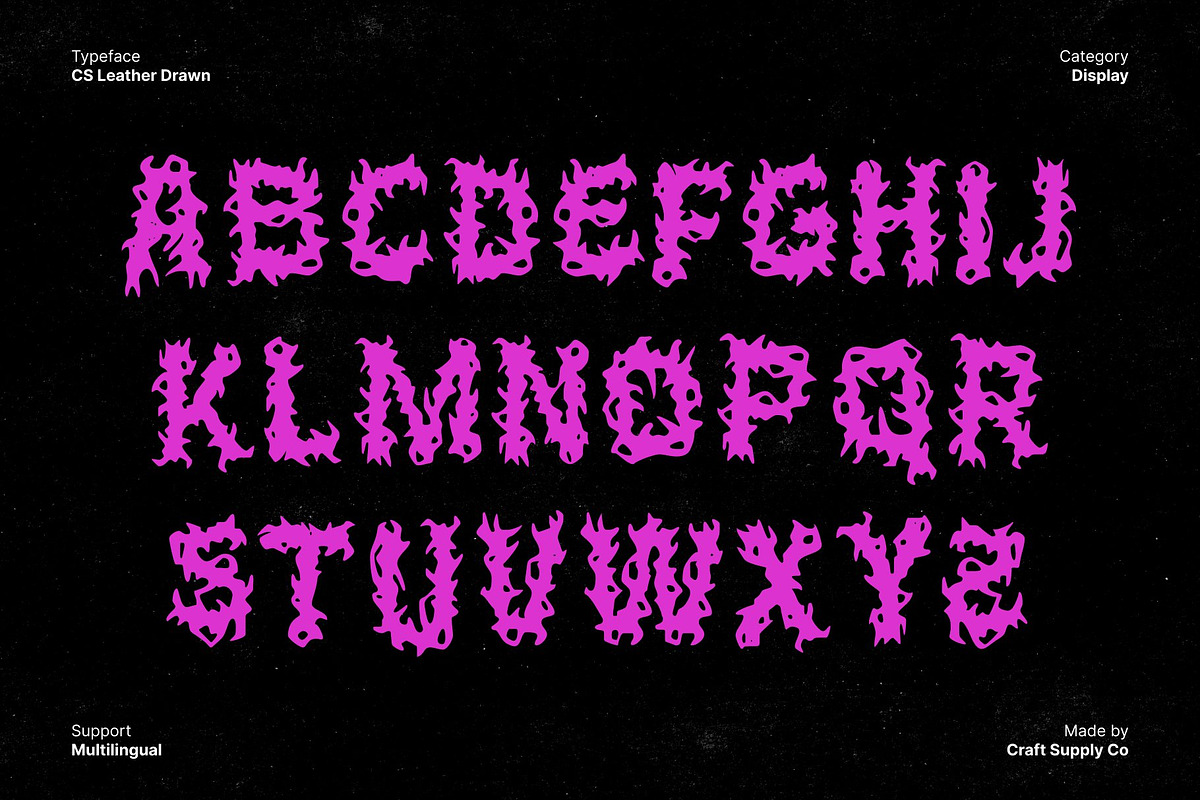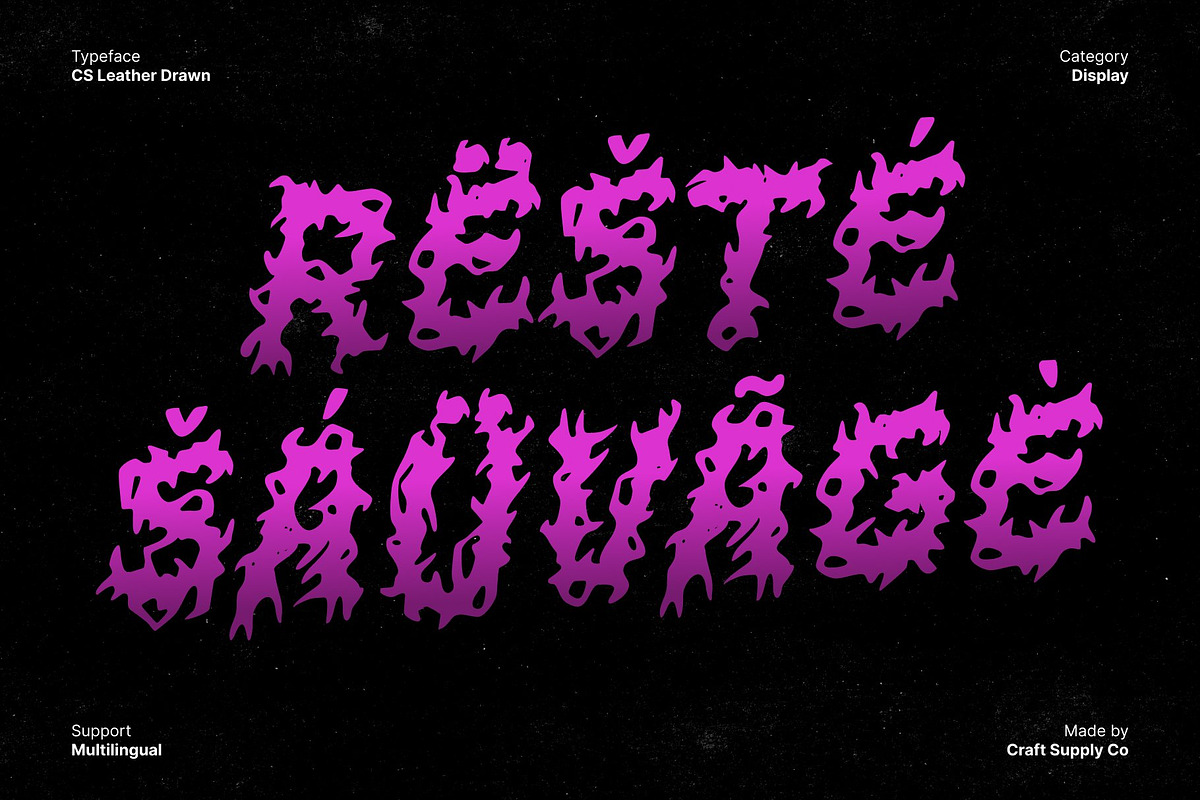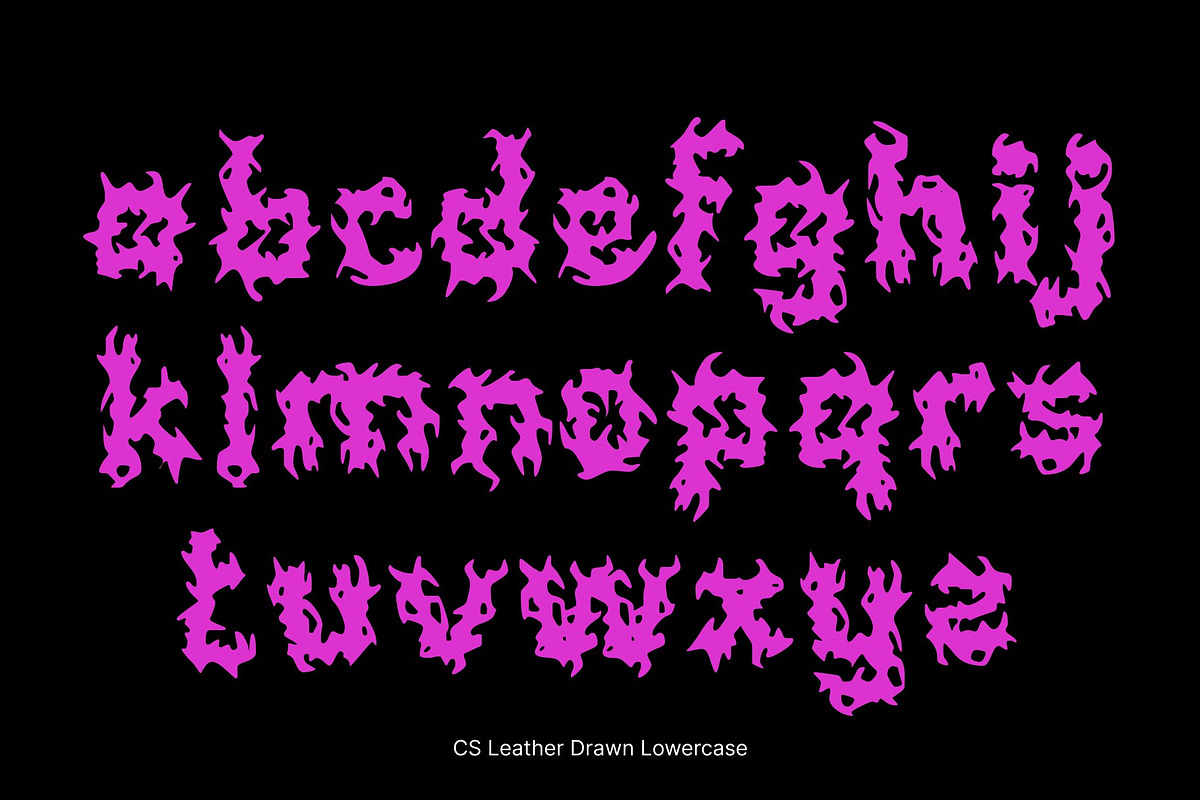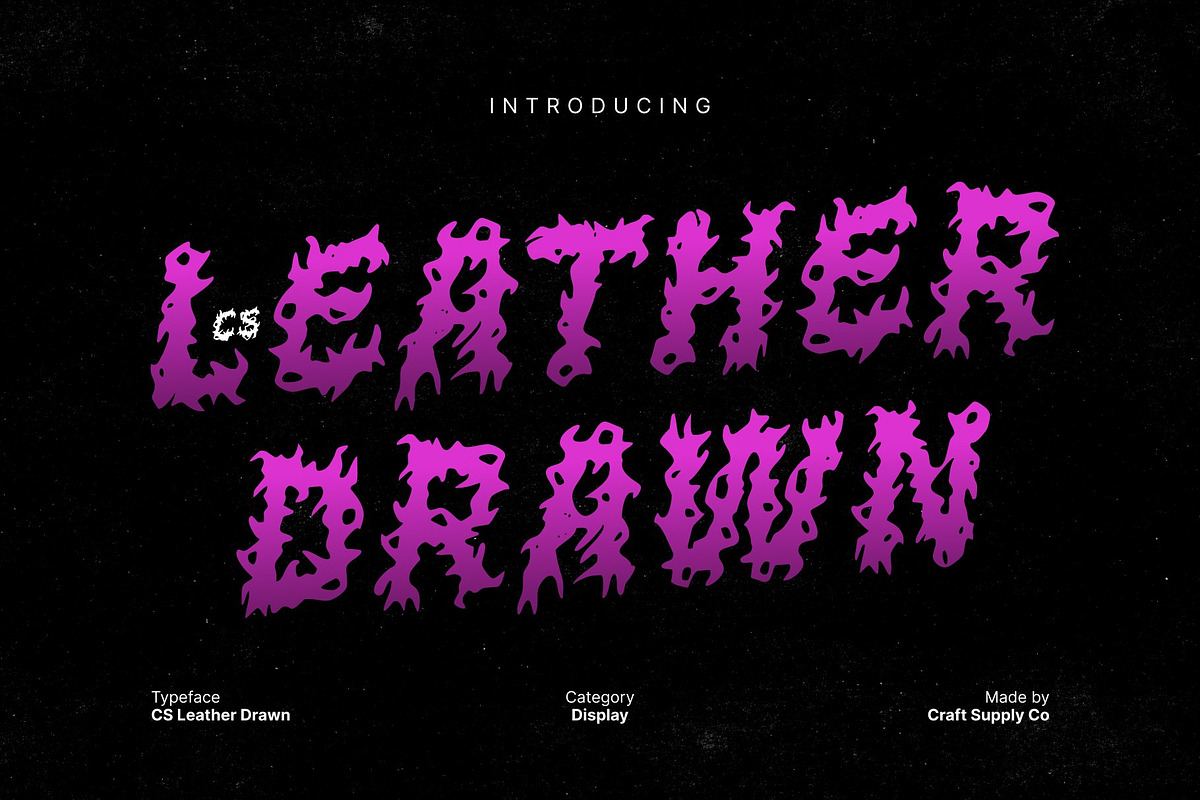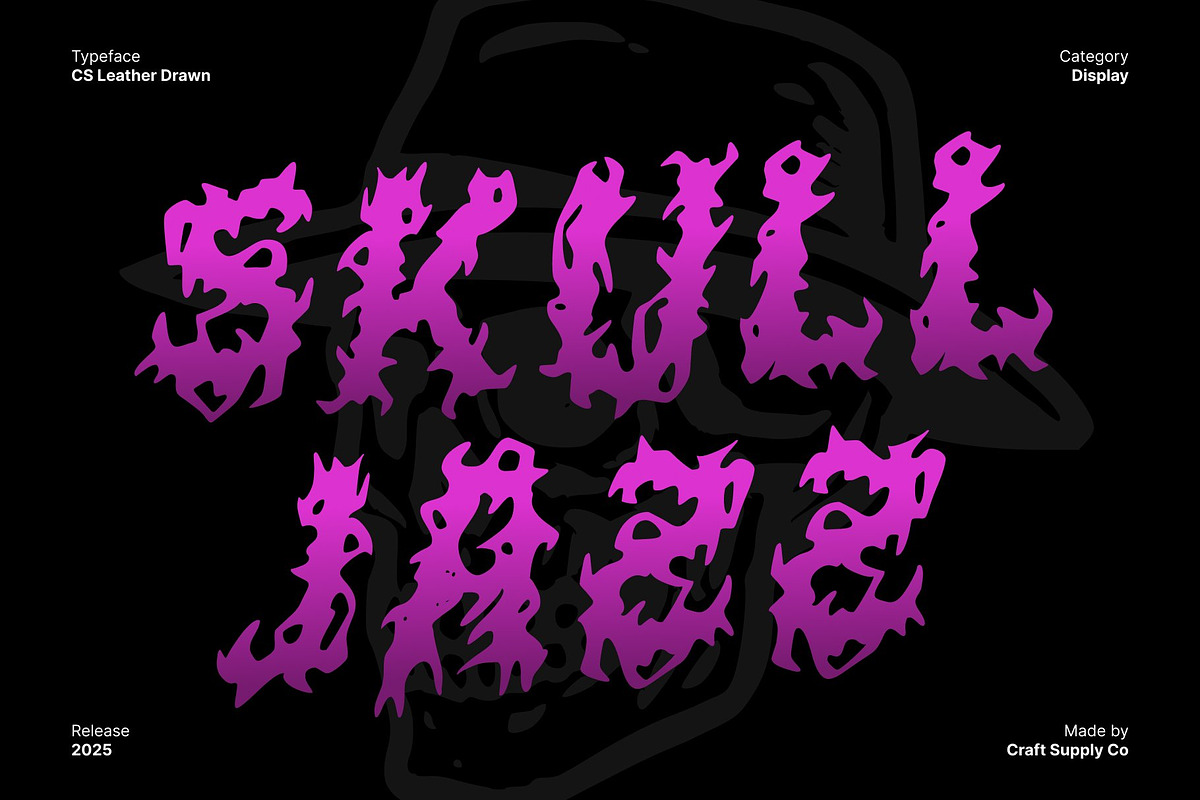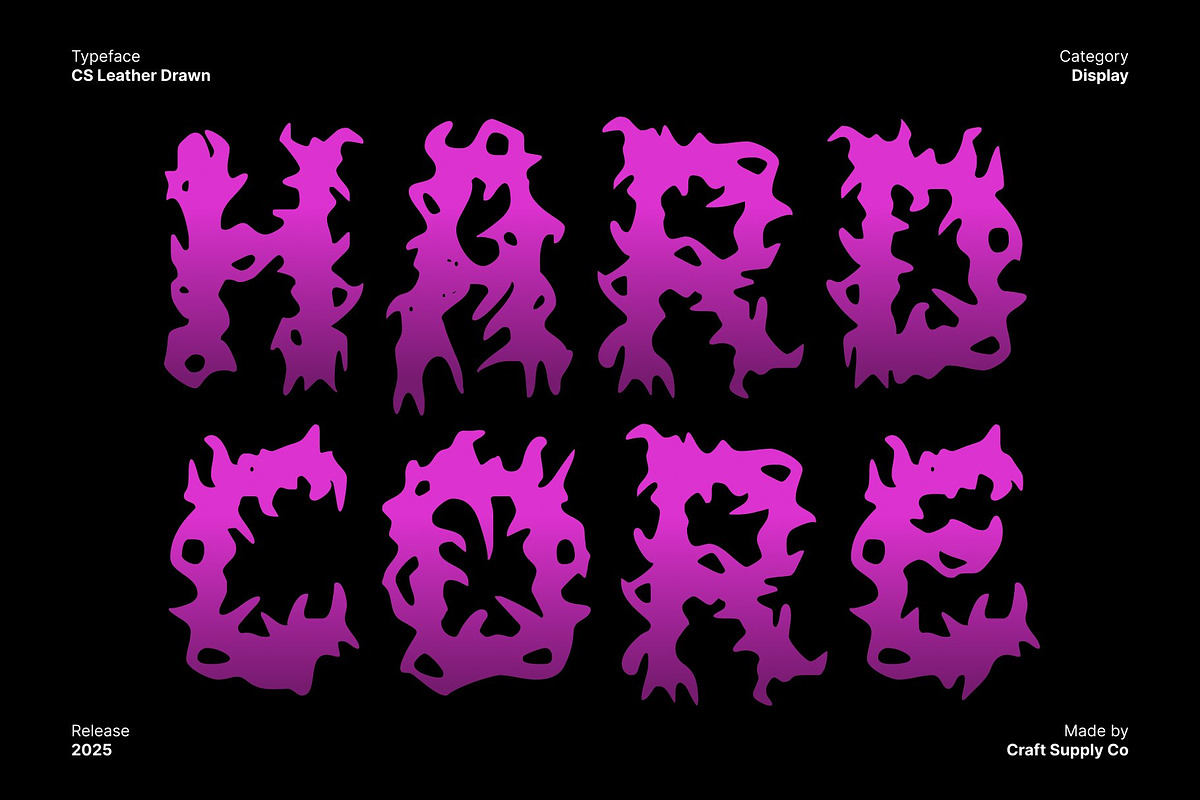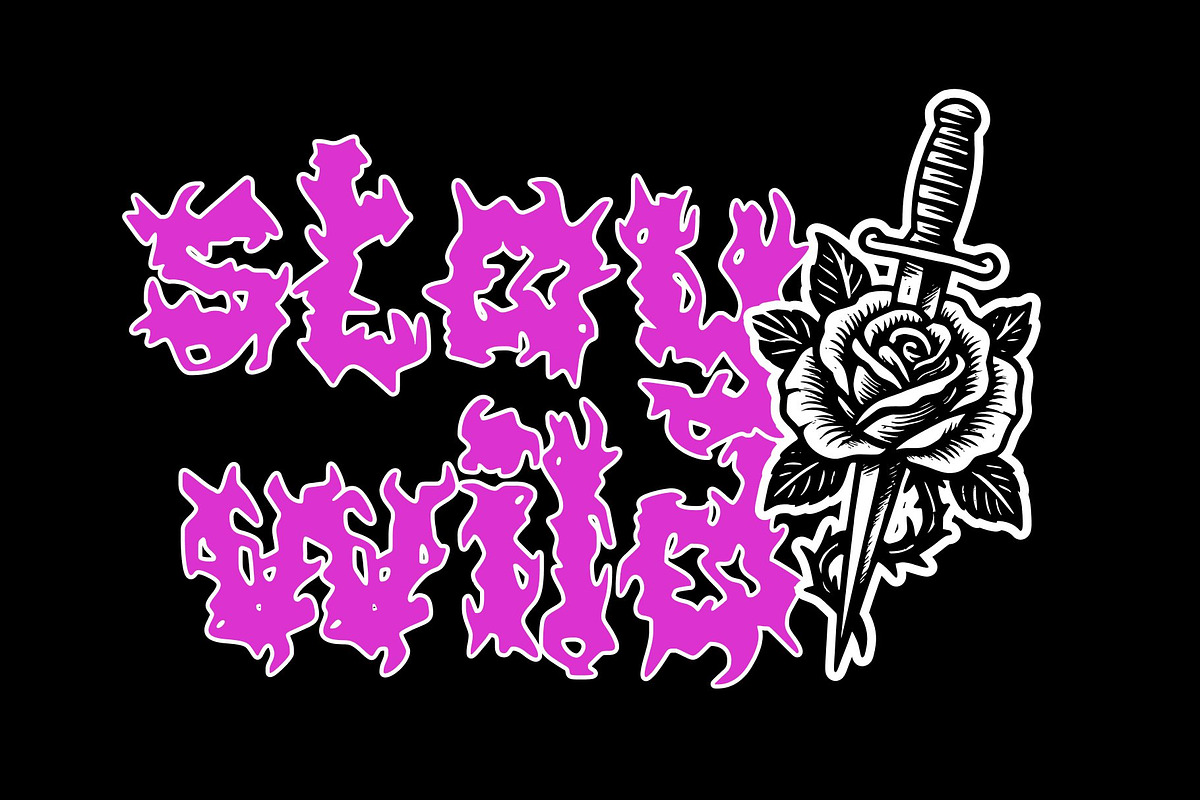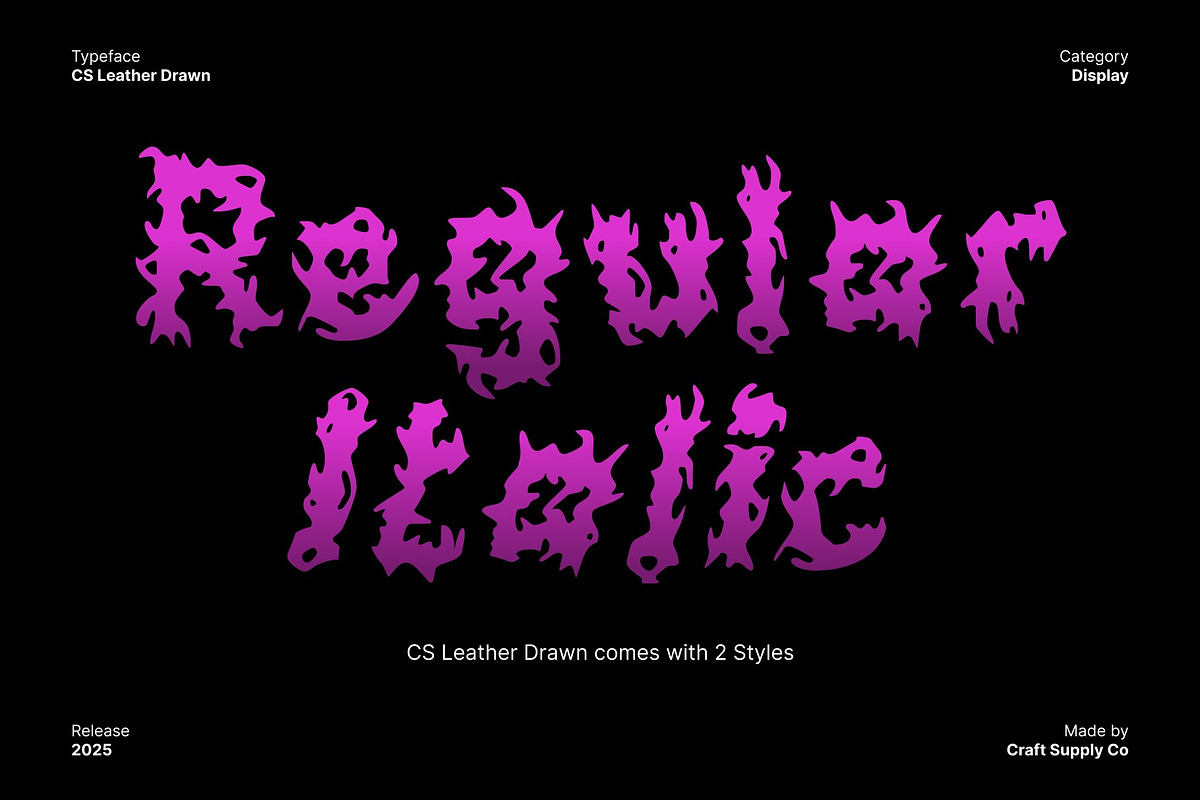
CS Leather Drawn
CS Leather Drawn – Black Metal Display Font with Chaotic Hand-Drawn Energy
A Fierce and Aggressive Black Metal Aesthetic This is a raw and untamed black metal display font crafted to embody the extreme intensity of underground music culture. With jagged spikes, sharp angular forms, and unruly shapes, this font radiates darkness and aggression. Every letter is designed to feel intimidating and powerful, capturing the spirit of extreme metal with unapologetic visual impact.
Chaotic Hand-Drawn Strokes for Authentic Brutality What makes this font truly stand out is its drawn texture each character is formed through chaotic, irregular strokes that feel violently scratched or carved. The hand-drawn effect reinforces its raw, destructive energy, adding a gritty, organic brutality often seen in true black metal artwork.
Perfect for Band Logos, Posters, and Edgy Visual Designs This font thrives in intense and rebellious design contexts. This font is ideal for metal band logos, album covers, gig posters, streetwear branding, horror visuals, or any creative project seeking a dark, threatening edge. Its aggressive energy commands attention, ensuring your designs stand out in even the most chaotic scenes.
A Type Choice for Designs That Demand Darkness This font isn’t just a font it’s a visual statement of intensity. Whether you’re creating artwork for extreme music, crafting a display branding identity, or designing for alternative subcultures, this typeface delivers raw power and emotional impact.
- CS Leather Drawn Regular
- CS Leather Drawn Italic